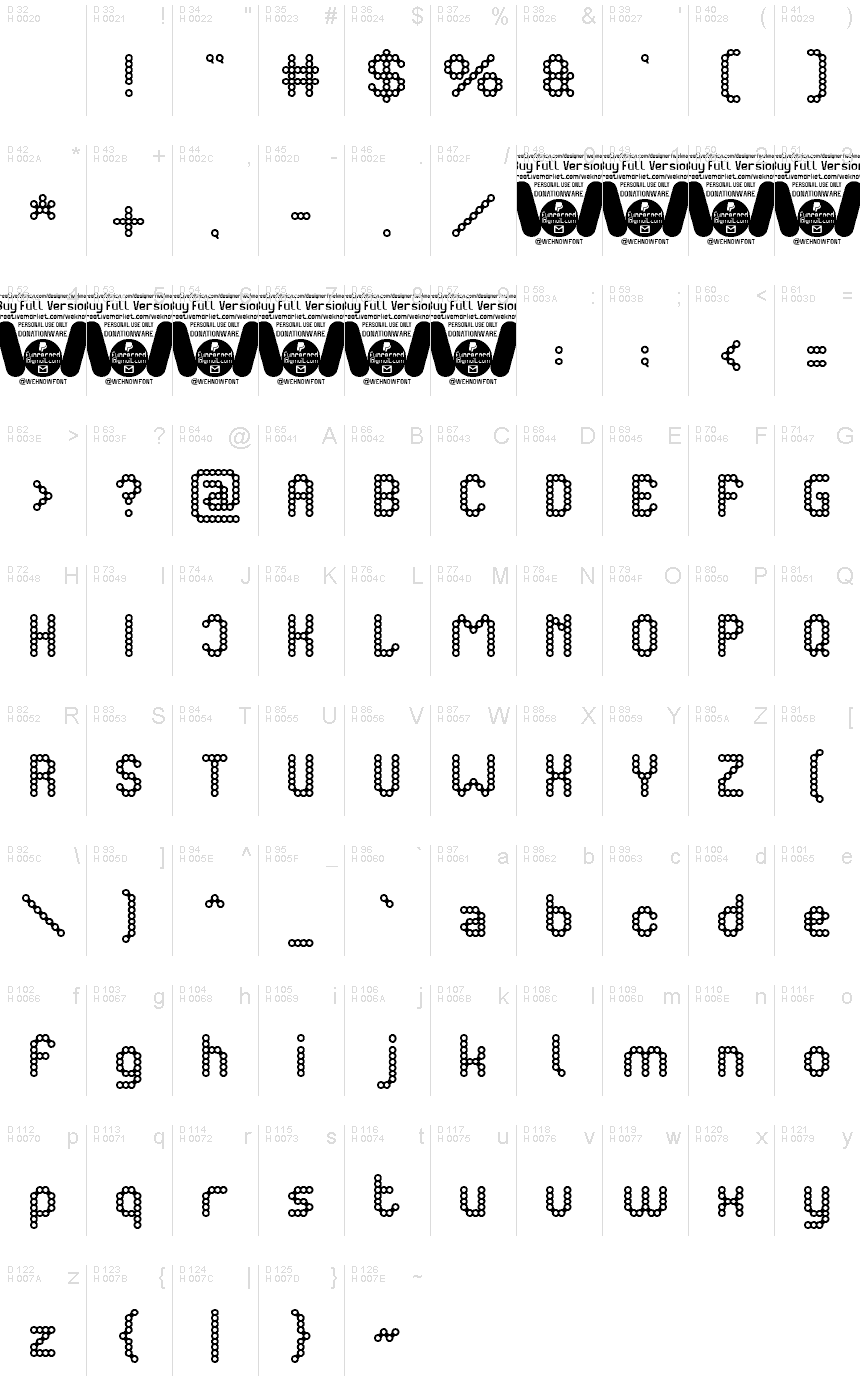
CONNECT THE DOTS
Connect the Dots font by Weknow is a free display font with a conceptual condensed structure. It has dotted geometric letters in lowercase and large dot-diagram uppercase letters. A modern feel prevails through its clean uniform appearance which makes this resource suitable for specific use cases.
The usages of Connect the Dots are as follow, magazine covers, book covers, game titles on posters or digital media, merchandise design for clothing items like T-shirts, caps and hoodies to match other everday fashion accessories or even stationery branding needs from labels to package designs.